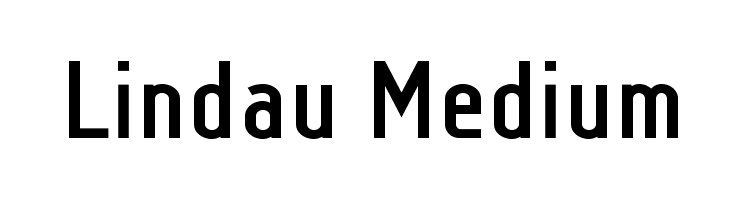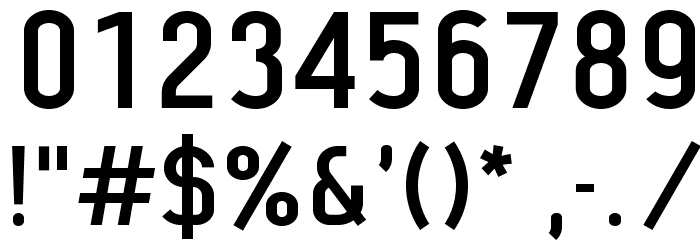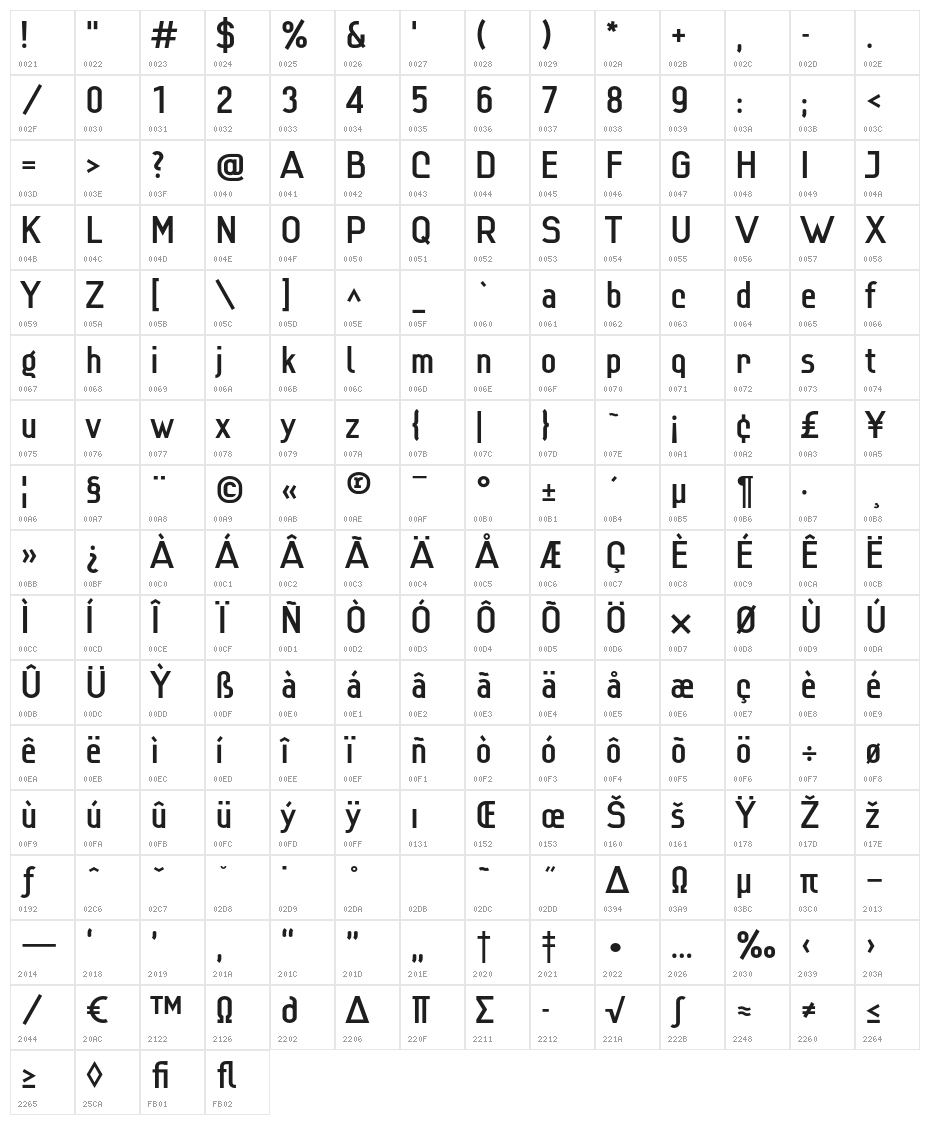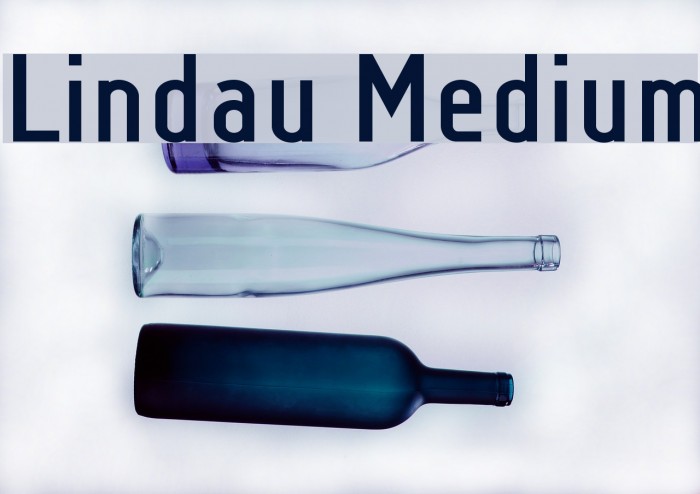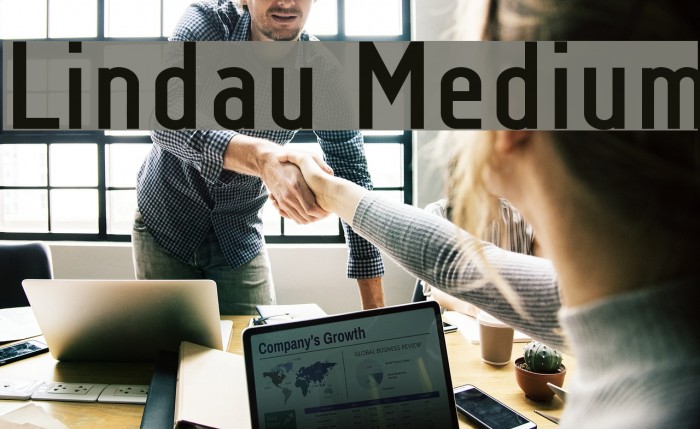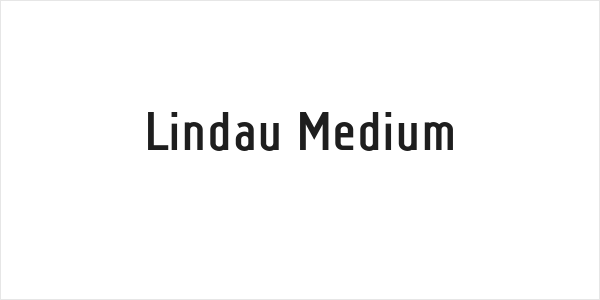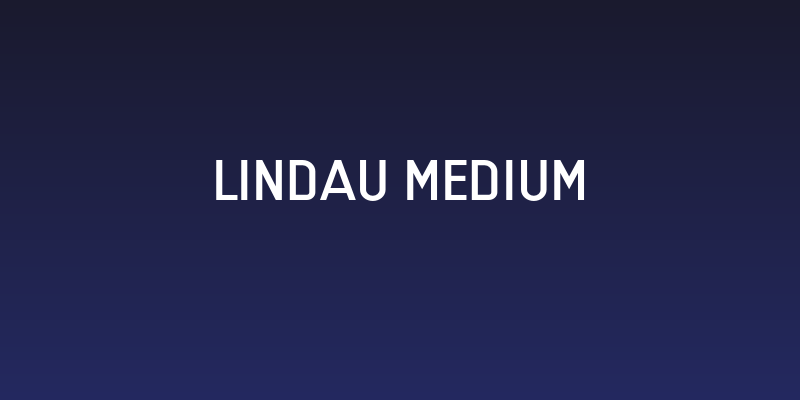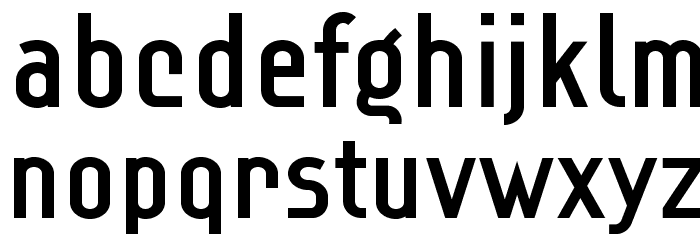
Lindau Medium Font
This font features a clean and modern sans-serif design with a geometric structure. The characters are well-balanced, with consistent stroke widths that give it a uniform appearance. The uppercase letters are bold and assertive, while the lowercase letters maintain a friendly and approachable look. The numerals are clear and easy to read, making them suitable for various applications. Special characters are distinct and integrate seamlessly with the overall style. The font's simplicity and clarity make it versatile for both digital and print media.
A modern, geometric sans-serif font with consistent stroke widths and a clean appearance.
• Category: Sans-Serif
• Contrast: Low
• Overall Style: Modern